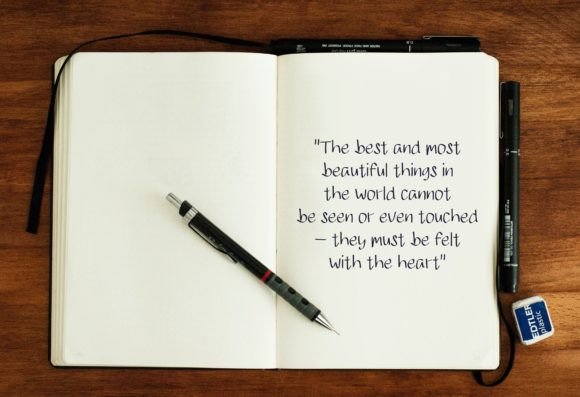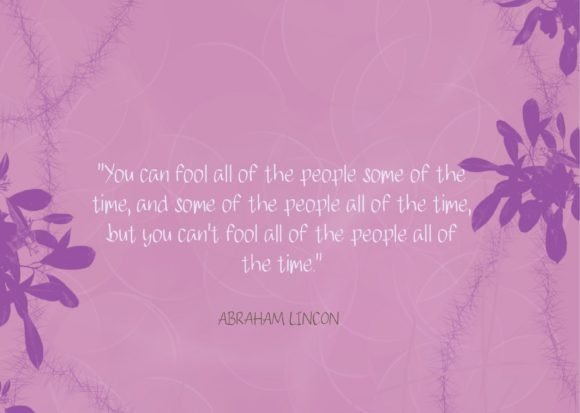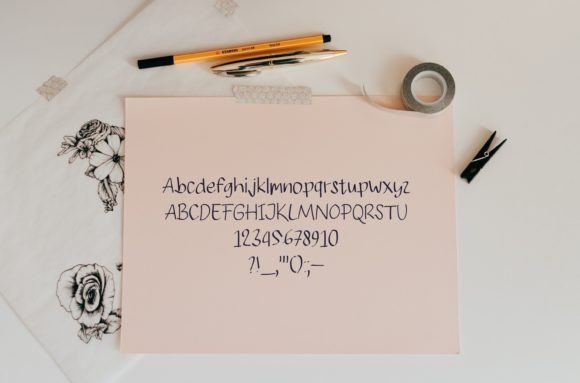
Wishly Font
About Wishly Font
“Wishly” is a delightful and lively hand-lettered font, brimming with a sense of fun and playfulness. Its whimsical charm makes it a fantastic addition to your fonts’ library, offering a versatile tool to enhance a wide array of creative projects. With its vibrant personality, “Wishly” has the power to transform any design into a visually appealing masterpiece.
The font’s playful nature makes it ideal for headings and titles. Whether you’re designing website headers, blog post titles, or presentation slides, “Wishly” adds a touch of joy and creativity to your typography. Its energetic strokes and dynamic letterforms capture attention, making your headings captivating and engaging for viewers.
In greeting cards, “Wishly” becomes a perfect choice for expressing cheerful and heartfelt messages. Its hand-lettered style adds a personal touch to the greetings, making them warm and inviting. Whether used for birthday cards, thank-you notes, or festive holiday greetings, this font infuses the cards with a sense of playfulness, making them memorable and delightful for recipients.
Product packaging benefits from the lively spirit of “Wishly.” Its fun and playful appearance adds a sense of excitement to packages, creating an enjoyable unboxing experience for customers. Whether you’re designing labels for colorful products or packaging for children’s items, this font adds a vibrant and cheerful vibe, making the products visually appealing and attractive to buyers.
For book covers, “Wishly” offers a unique and eye-catching typography style. Its playful letterforms can be used to create captivating and whimsical book titles, especially for genres like children’s books, young adult fiction, or fantasy novels. The font’s lively energy sets the tone for the book, making it appealing and intriguing to potential readers.
Printed quotes come to life with the use of “Wishly.” Whether featured in posters, inspirational prints, or home décor items, this font adds a sense of positivity and enthusiasm to the words. Its playful design enhances the motivational impact of the quotes, making them visually inspiring and encouraging for readers.
In logo design, “Wishly” adds a touch of creativity and spontaneity. Its hand-lettered style creates a unique and memorable brand identity, especially for businesses seeking a friendly and approachable image. Whether you’re creating logos for creative agencies, art studios, or entertainment companies, this font ensures that the brand stands out with its playful and inviting charm.
Album covers, another creative platform, benefit from the expressive nature of “Wishly.” Its lively and playful design adds an artistic flair to music albums, making them visually appealing and intriguing for potential listeners. Whether used for album titles, band names, or track listings, this font enhances the overall aesthetics, setting the mood for the music inside.
In summary, “Wishly” is more than just a font; it’s a source of creativity and joy. Its fun and playful hand-lettered style make it a versatile choice for a wide range of projects, including headings, greeting cards, product packaging, book covers, printed quotes, logos, and album covers. By incorporating “Wishly” into your creations, you infuse them with a sense of fun and excitement, ensuring that your designs leave a lasting impression and bring smiles to the faces of your audience.